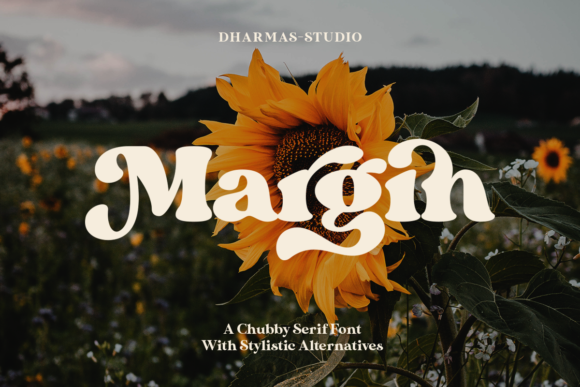
Introducing Margin Font, a captivating and versatile serif font designed by the talented team at Dharmas Studio. Inspired by classic typography, Margin brings a unique and stylish touch to your design projects.
With its elegant and timeless appeal, Margin is the perfect choice for creating eye-catching headlines of all sizes. Its versatility shines through as it effortlessly complements both bold and delicate designs.
Whether you're working on a website, a print publication, or even moving images, Margin Font will make your content truly stand out. Its impeccable legibility ensures that your message reaches your audience with impact and clarity.
The beauty of Margin lies in its ability to adapt to any style or aesthetic. It effortlessly blends with modern, minimalist designs, adding a touch of sophistication. At the same time, it seamlessly integrates into more traditional or vintage-inspired layouts, infusing them with a contemporary twist.
Immerse your audience in a world of elegance and charm with Margin Font. Its captivating curves and precise letterforms will captivate readers and add a touch of refinement to any project.
But Margin is not just about aesthetics; it's also about functionality. This font is designed to handle both large blocks of text and small variations with ease. It ensures readability and maintains a consistent visual rhythm, enhancing the overall user experience.
Unleash your creativity and let Margin Font elevate your designs to new heights. With its extensive range of weights and styles, you have the freedom to experiment and find the perfect combination that truly represents your vision.